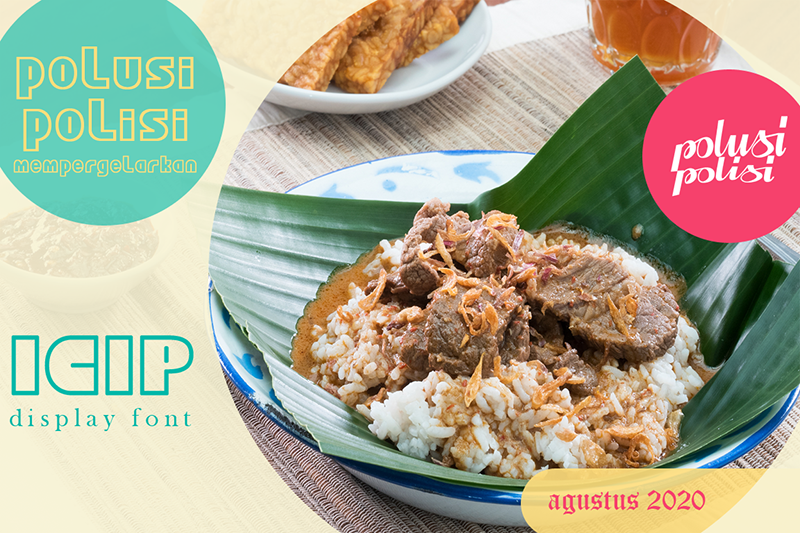
Hello, design enthusiasts. Introduce, this is my newest font, named Icip. Icip is a display font that emphasizes curved outlines, has a sleek and fun impression. Icip is perfect for use on coloring books, decorations, paper crafts, stickers, tote bags, tumblers, etc. What's included : - Icip OTF - Icip TTF Features : - Uppercase - Lowercase - Numbers - Punctuation Follow my shop and don't forget to check my other fonts. Please send criticisms, suggestions and questions to b_ibnu_r@comic.com. Thank you. donate paypal.me/bibnur linktree rb.gy/6kv7j |